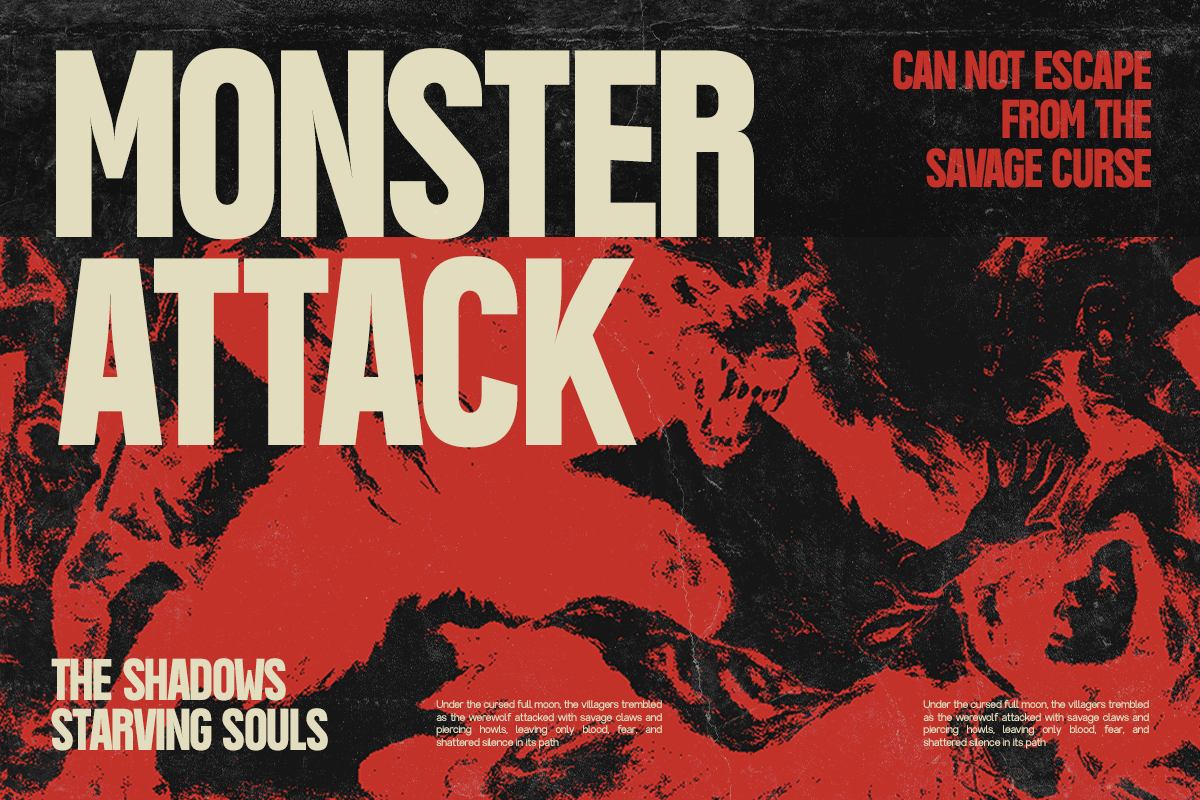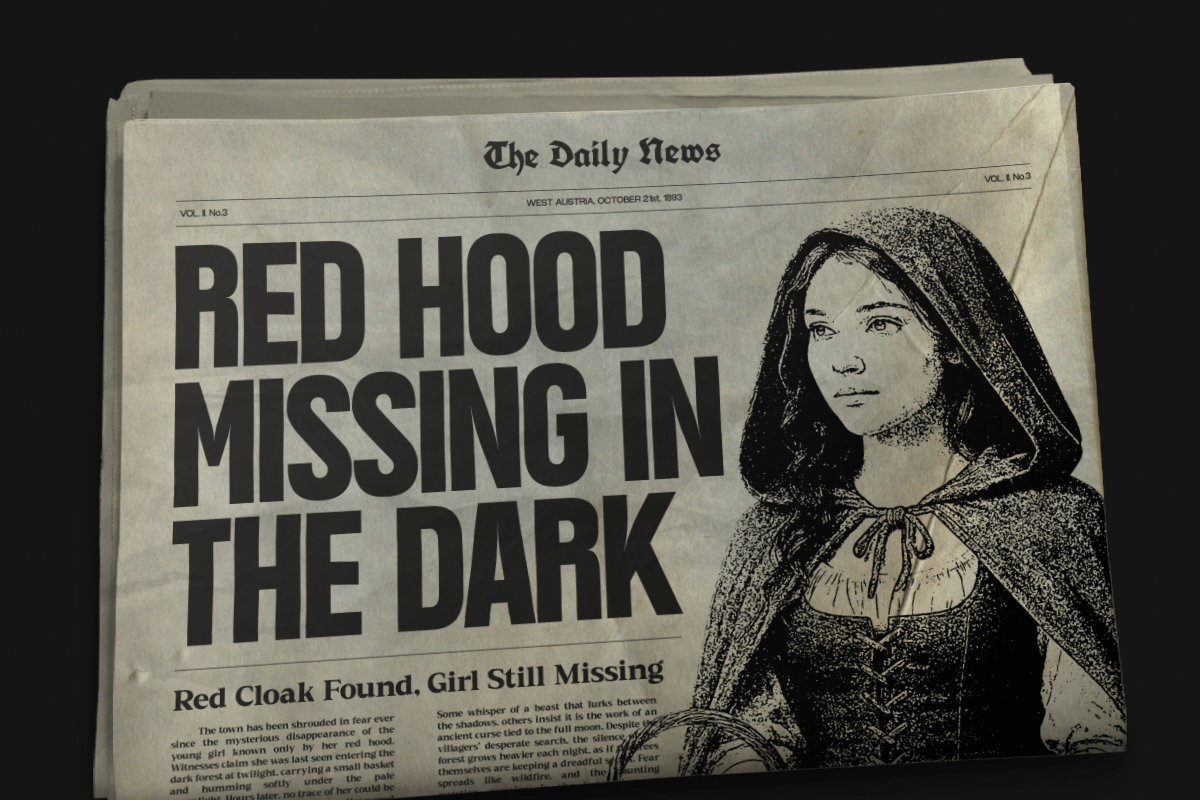
Vank – Strong Bold Condensed Font is a versatile typeface ideal for various projects, including Sans-Serif, logos, branding, posters, blog headers, advertisements. The free version includes a full set of uppercase and lowercase letters, available in OTF, TTF format.
Vank – Strong Bold Condensed Font